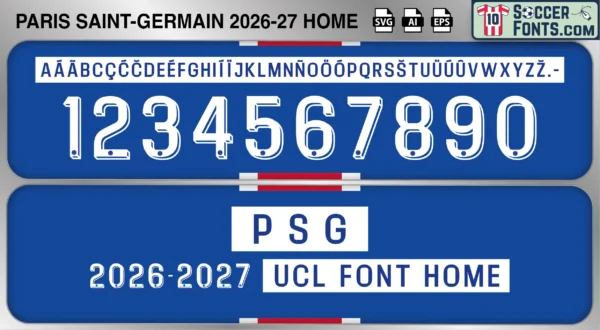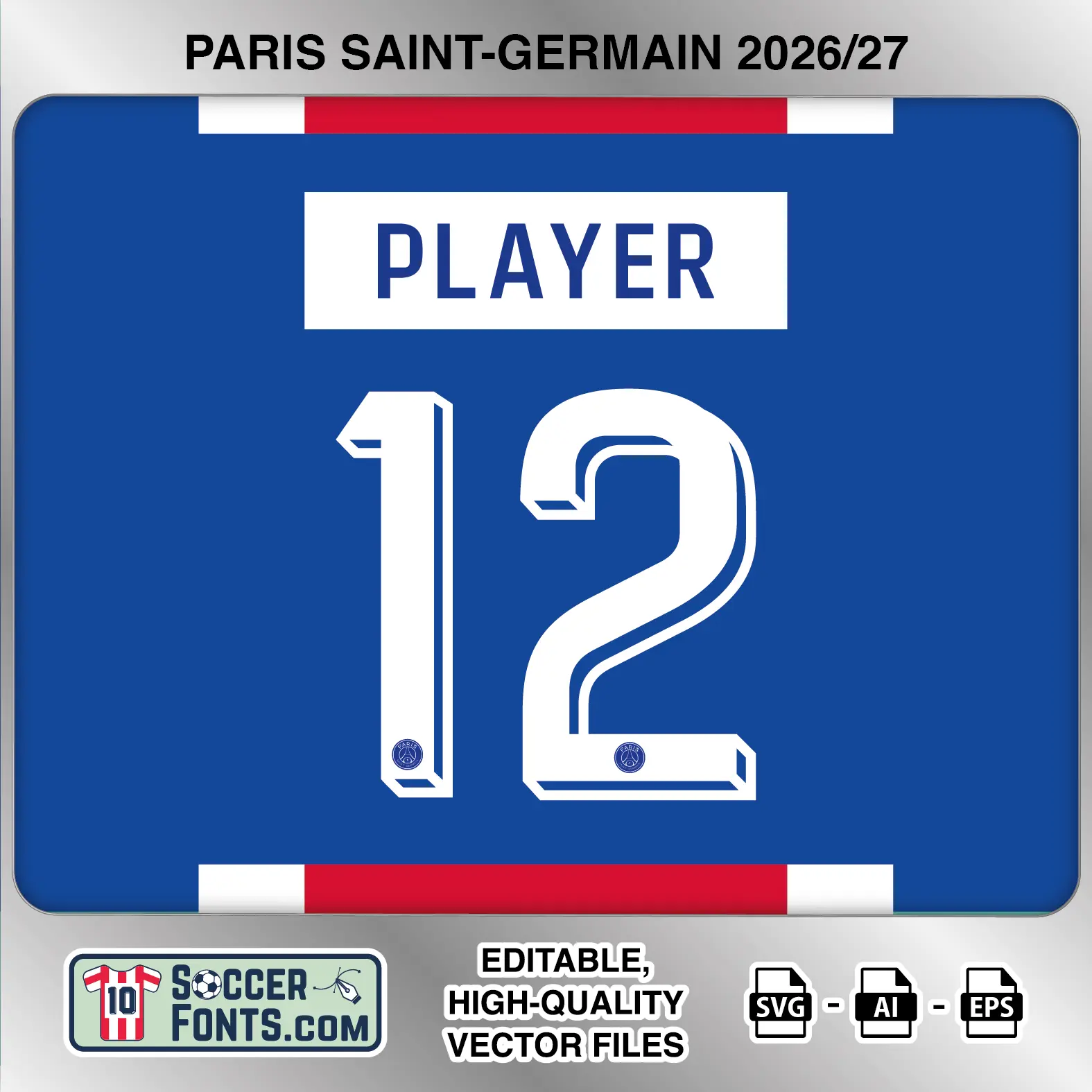
PSG 2026-27 Font Home UCL
Download PSG 2026-27 Font Home UCL, an editable soccer jersey lettering design in AI, SVG and EPS vector formats inspired by the official Paris Saint-Germain home kit typography used during the 2026-27 UEFA Champions League season. This football font artwork is suitable for football shirt recreations, custom jersey printing, football kit mockups and sports graphic design workflows.
The PSG 2026-27 Font Home UCL is specifically associated with the official lettering system used on Paris Saint-Germain’s home shirt during UEFA Champions League matches. Unlike domestic Ligue 1 competition, UEFA tournaments use dedicated competition typography, and for the 2026-27 season PSG’s home European kit features its own Champions League lettering style. The PSG 2026-27 Font Home UCL represents the official typography worn throughout the club’s European home fixtures, making it an ideal reference for authentic Champions League shirt recreations. PSG home shirts from this campaign are expected to become especially desirable among football shirt collectors, kit enthusiasts and sports designers documenting the club’s latest European journey.
PSG 2026-27 Font Home UCL football shirt vector design
PSG 2026-27 Font Home UCL